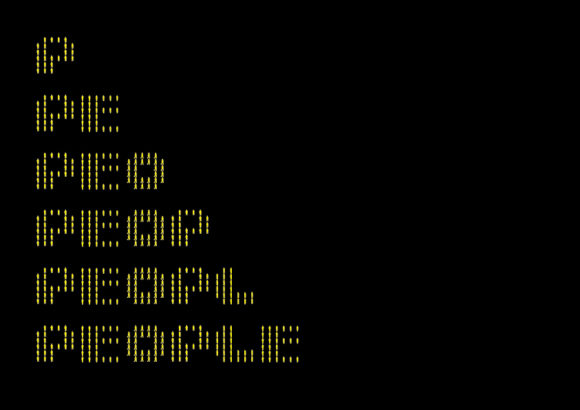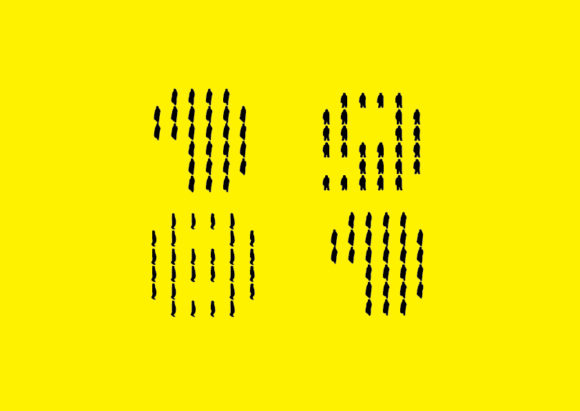
Introduction to Peoples Font Font
Fonts play a crucial role in design, and the Peoples Font font is a typeface that brings both character and versatility to any project. Whether you’re working on a branding project, a website, or a print design, the Peoples Font font offers a unique style that can elevate your work.
Peoples Font is a font made up of people.
A fun uppercase display font .
Key Features of Peoples Font Font
Why Choose Peoples Font Font?
The Peoples Font font is more than just a typeface – it’s a design tool that helps you communicate your message with style and clarity. Its unique character set and versatile design make it suitable for a wide range of applications, from elegant invitations to bold headlines.
With its carefully crafted letterforms and balanced proportions, the Peoples Font font ensures readability and visual appeal across all mediums.
What makes Peoples Font font special?
The Peoples Font font stands out with its unique design, exceptional readability, and versatility across various design applications.